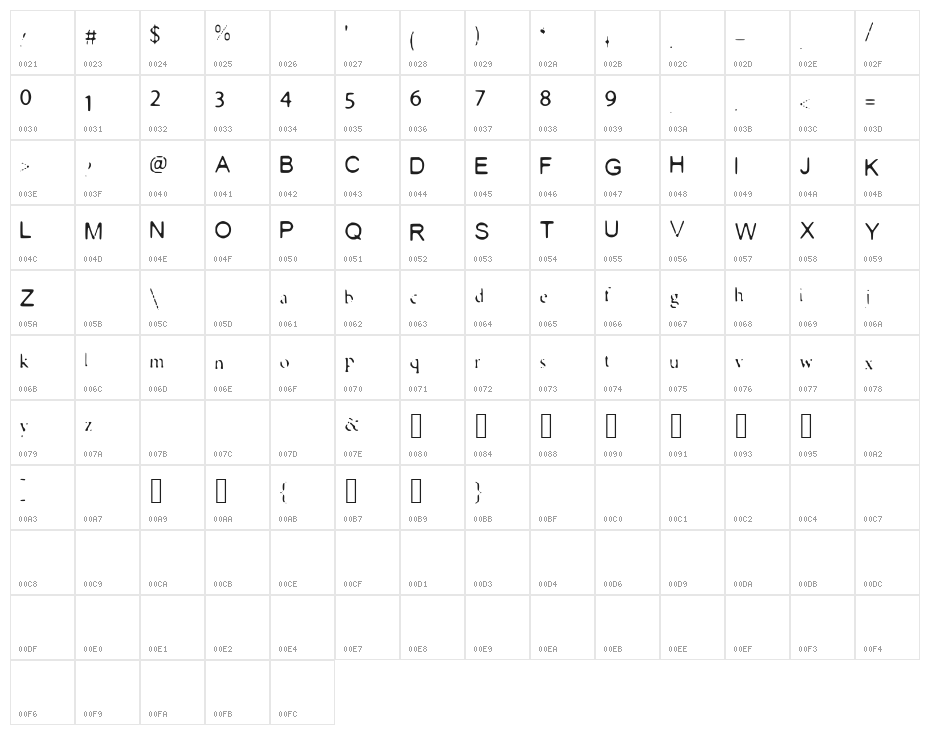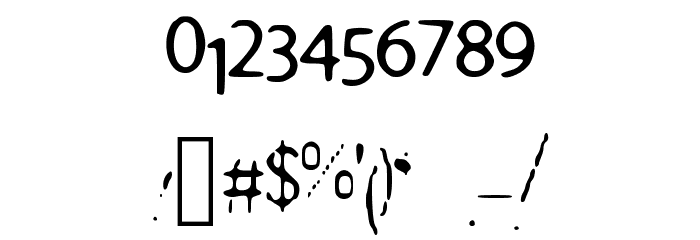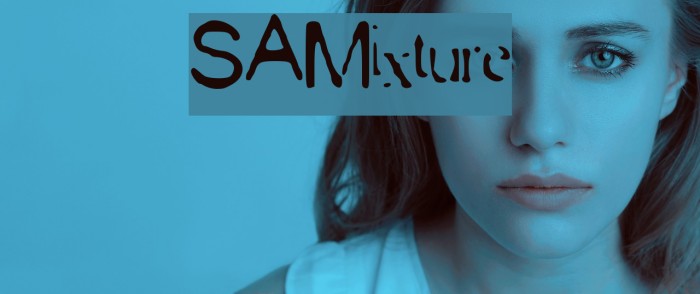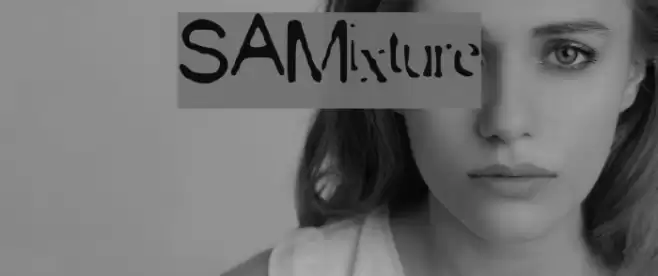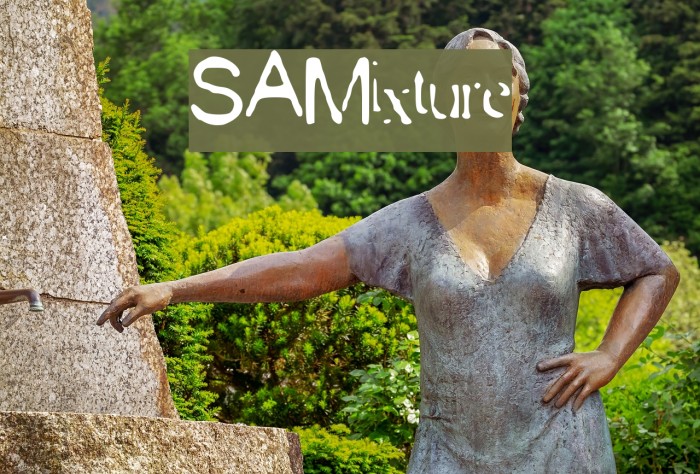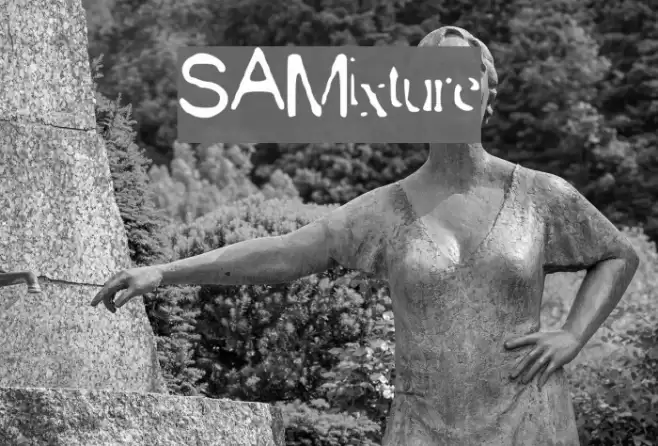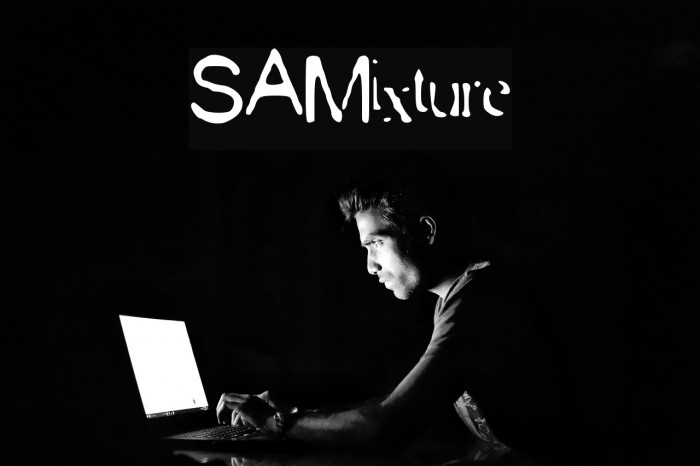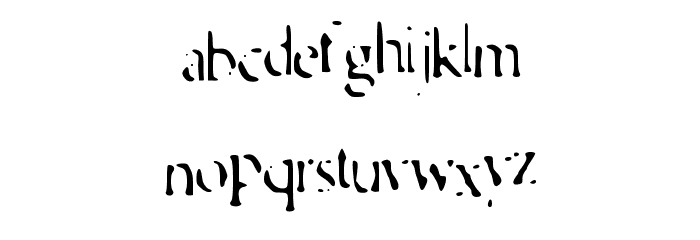
SAMixture Font
SAMixture Description
This font features a unique blend of modern and vintage styles, characterized by its bold and slightly irregular letterforms. The uppercase letters are strong and prominent, while the lowercase letters exhibit a more playful and artistic flair. The numbers are clear and consistent with the overall style, making them easy to read. Special characters are creatively designed, adding a decorative touch. The font's distinct appearance makes it suitable for projects that require a bold statement or an artistic edge.
| Overall Style | Modern, Vintage |
| Proposed Projects | Ideal for branding, poster design, and creative projects that need a bold and artistic touch. |